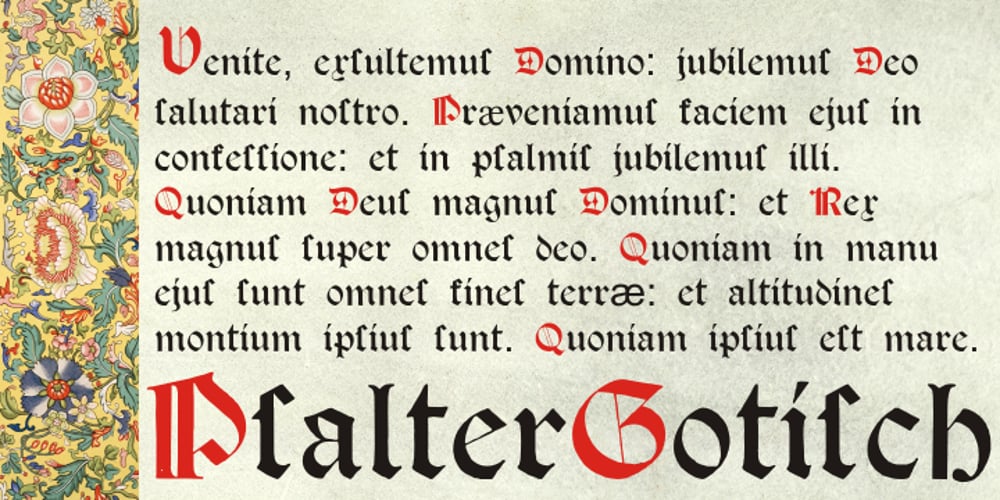
Psalter Gotisch Font Family was designed by Paulo W and published by Intellecta Design. Psalter Gotisch contains 3 styles and family package options. Psalter Gotisch is blackletter font.